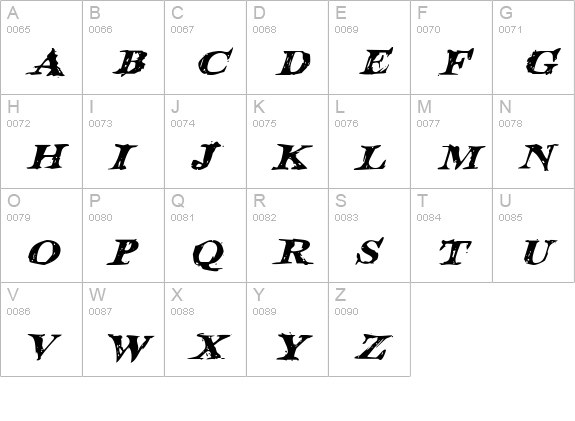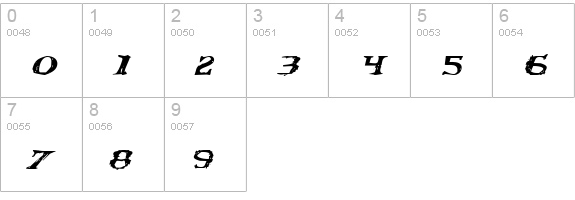
Blood Crow Expanded Italic is a distinctive, extended-width, italic variant in the Blood typeface family \xE2\x80\x94 well suited to design and typography projects.
Blood Crow Expanded Italic font is a striking and bold typeface that exudes power and sophistication. Its italicized design adds a sense of dynamism and movement to any text it graces. The sharp angles and unique letterforms make this font ideal for projects that require a strong and impactful visual presence. What's even better is that Blood Crow Expanded Italic font is available for free download at FontsMarket.com. This means you can easily access this impressive font and elevate your designs without breaking the bank. Whether you're working on a branding project, advertising campaign, or any other creative endeavor, Blood Crow Expanded Italic font is sure to make a lasting impression. Download it now and unleash its potential in your next project!